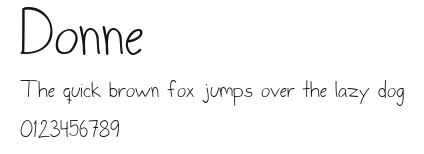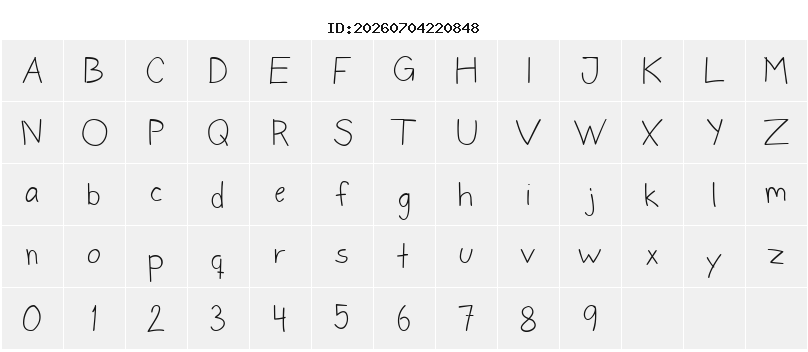
• Font Name: Donne
• Font ID: Macromedia Fontographer 4.1.4 Donne Normal
• Full Font Name: Donne Normal
• PostScript Name: DonneNormal
Donne.ttf is a modern, elegant sans-serif font designed for ultimate readability and visual harmony. Perfect for branding, headlines, web design, and print materials.